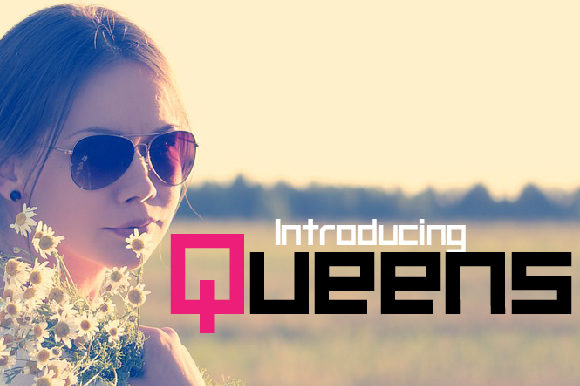
Queens Font
Introducing Queens Font, a captivating creation by da_only_aan, designed to transform your designs into masterpieces. This semi-pixel sans serif font exudes freshness and strength, promising to turn heads and leave a lasting impression.
Queens Font is meticulously crafted with crisp, clean lines and meticulously balanced letterforms, ensuring exceptional readability and visual appeal. Its semi-pixel design adds a touch of modernity and uniqueness, making it perfect for a wide range of design projects.
Whether you're creating powerful headlines, eye-catching logos, or stunning website designs, Queens Font is your go-to choice for making a bold statement. Its strong character set and wide range of weights provide endless possibilities for creating captivating visuals that command attention.
With Queens Font, you'll unlock a world of creative possibilities. Its versatile style lends itself effortlessly to various design aesthetics, from sleek and minimalist to bold and expressive. Embrace Queens Font and watch your designs come alive with a fresh, contemporary edge.